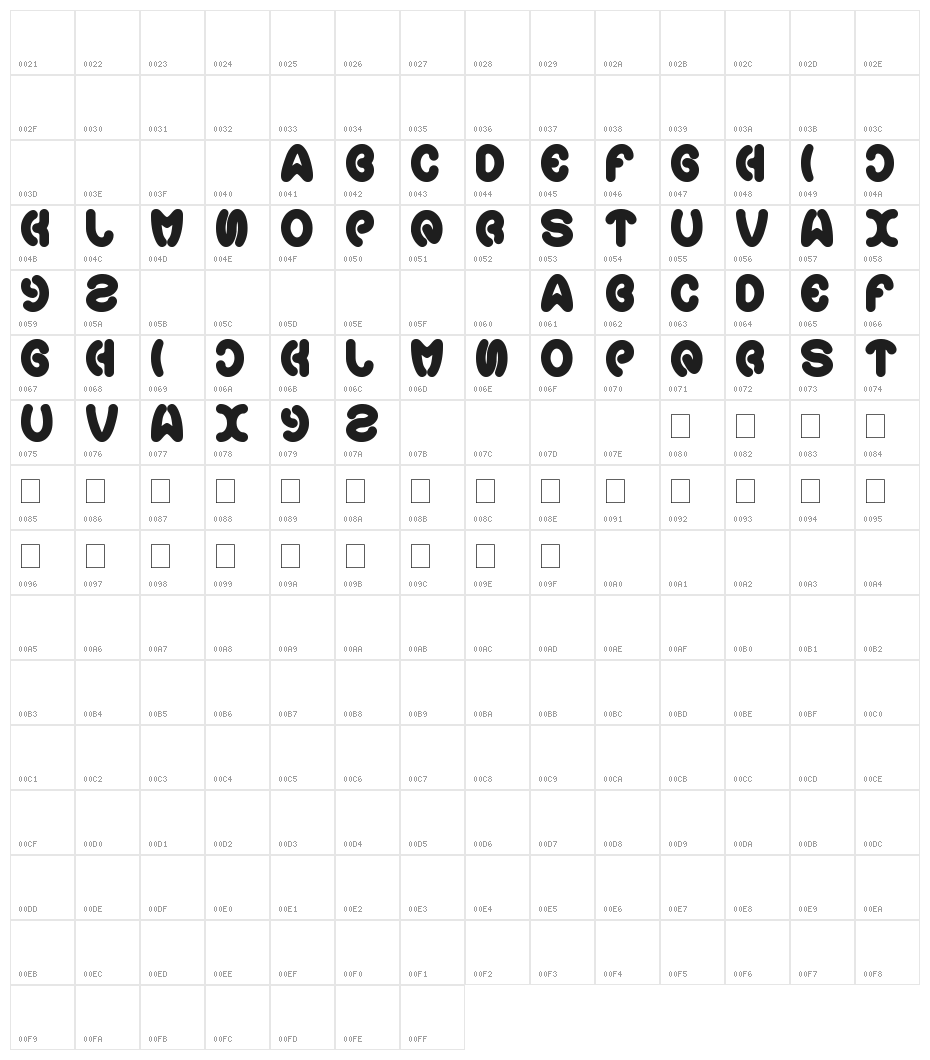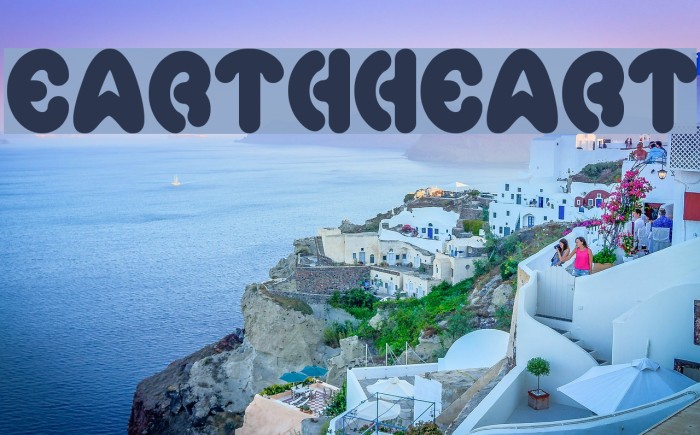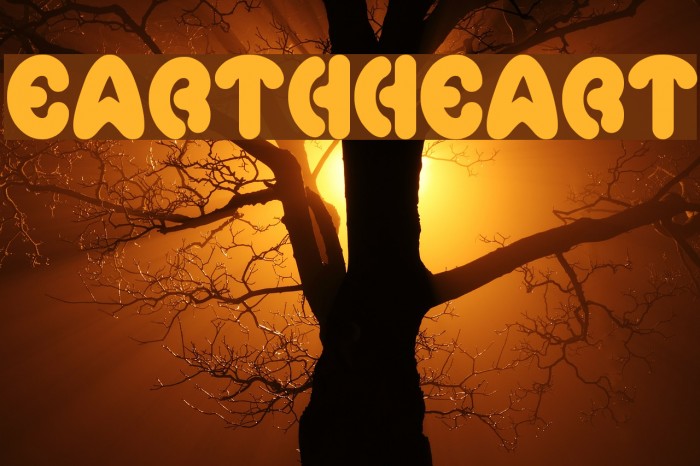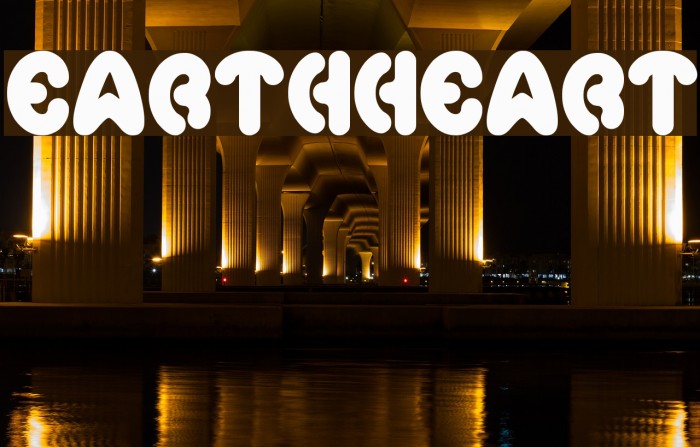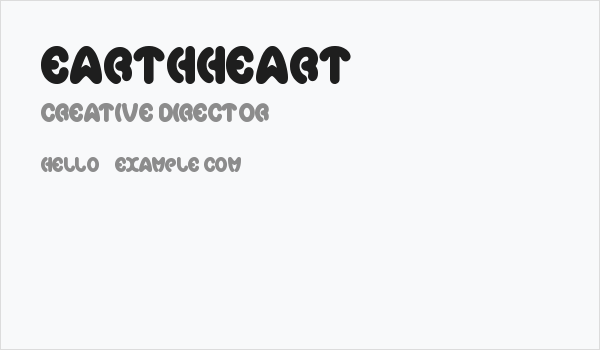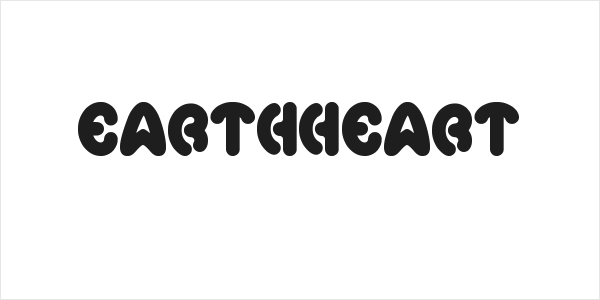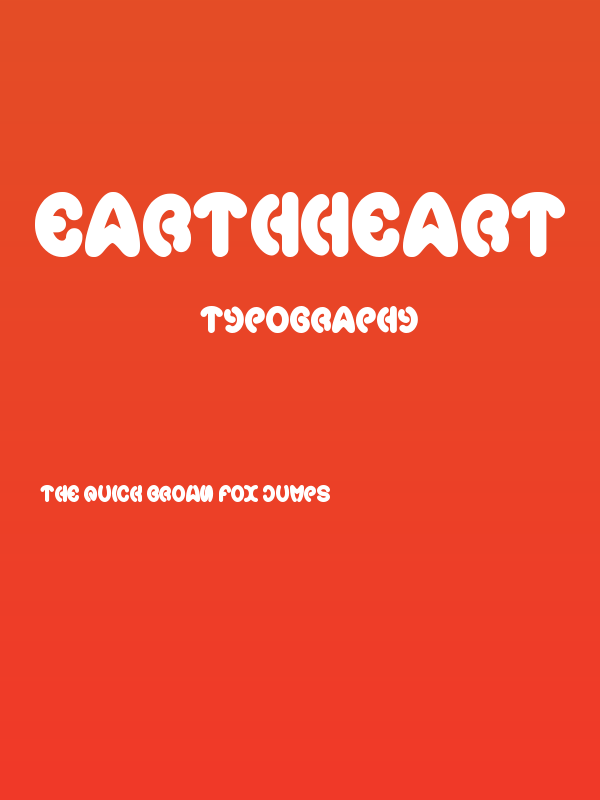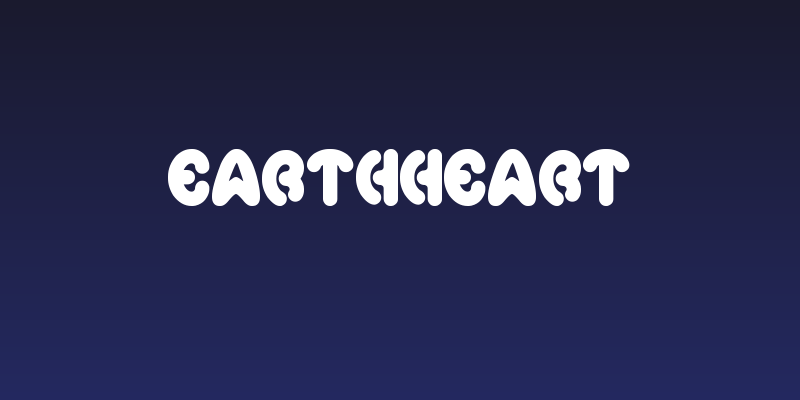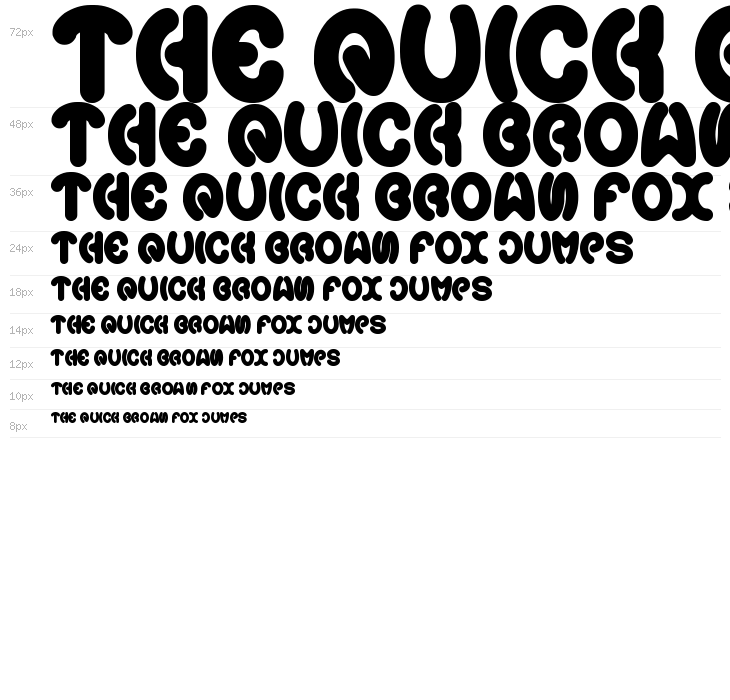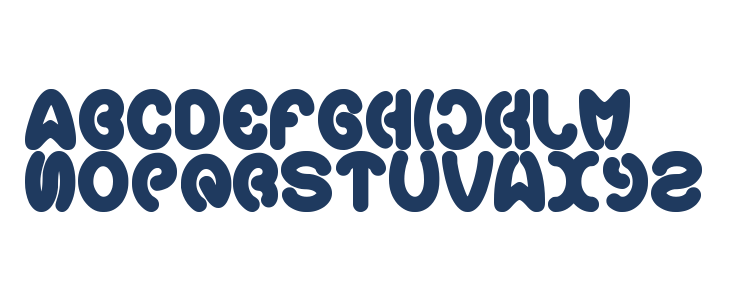
earthheart Font
earthheart Description
This font features a bold and playful design with thick, rounded strokes that create a sense of fun and whimsy. The characters are uniquely shaped, with exaggerated curves and a bubbly appearance that makes them stand out. The overall style is reminiscent of retro or vintage designs, yet it maintains a modern appeal through its clean lines and smooth edges. The letters are evenly spaced, providing a balanced and cohesive look. This font is particularly eye-catching and would be suitable for projects that aim to convey a sense of joy and creativity.
| Overall Style | Playful, Retro, Modern |
| Proposed Projects | Ideal for children's books, playful branding, posters, and event invitations. |